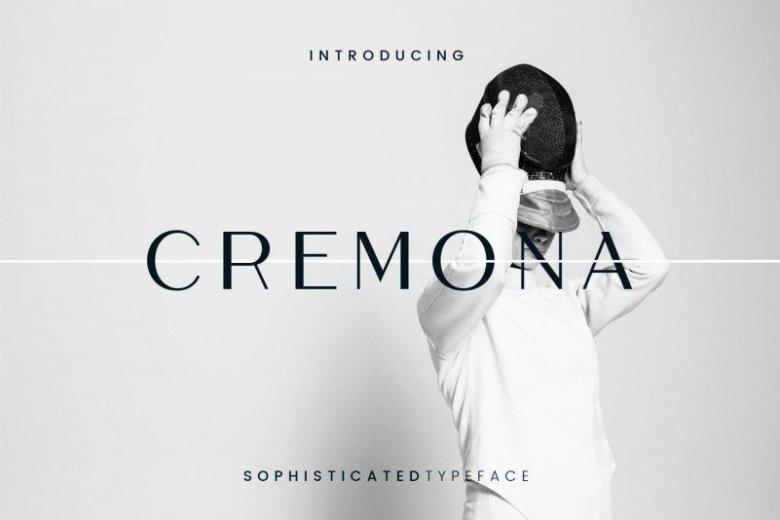
Cremona Sans Font
Introducing Cremona Font. This is sans serif font that designed to be functional. It’s a memorable, fashionable, strong and elegant typeface. You can mix and match the rounded and the Regular style to create something very fresh and modern.
It’s will look perfect for headlines, logotypes, signage, advertising, magazine, logos, invitations, texts, posters, notices, titles, name card, web layouts, headers, branding, weddings, social media, product design, stationery, and other any business related.